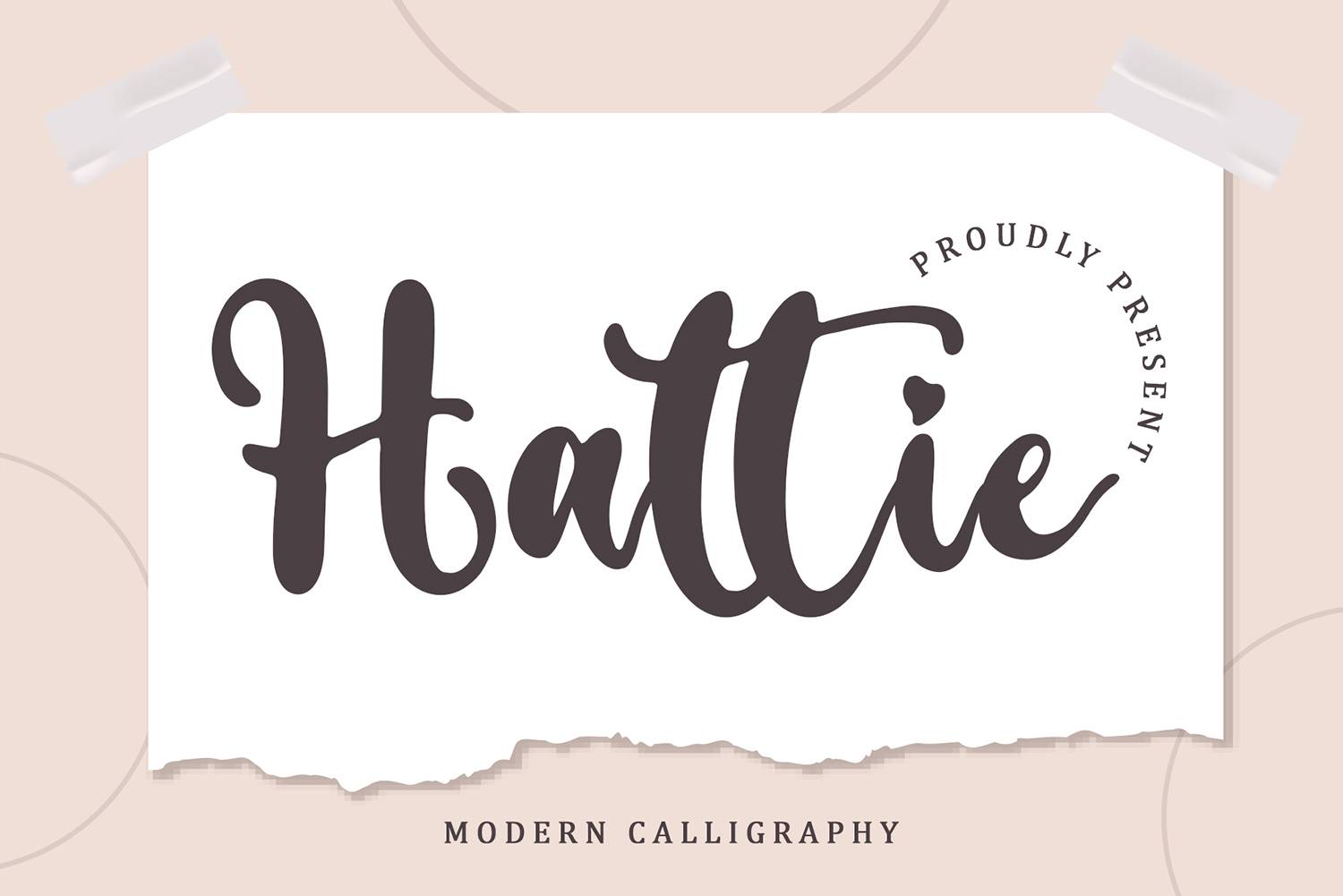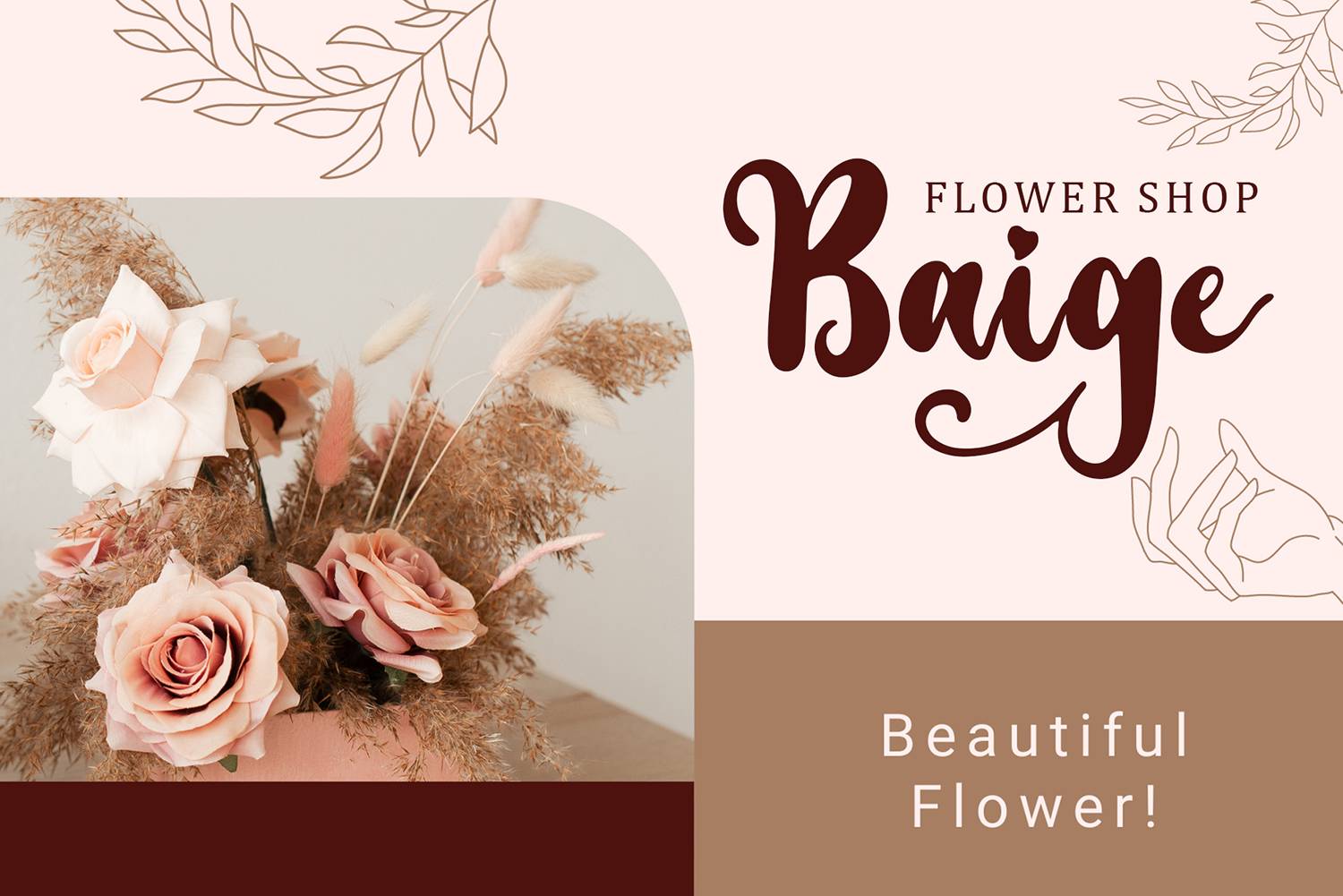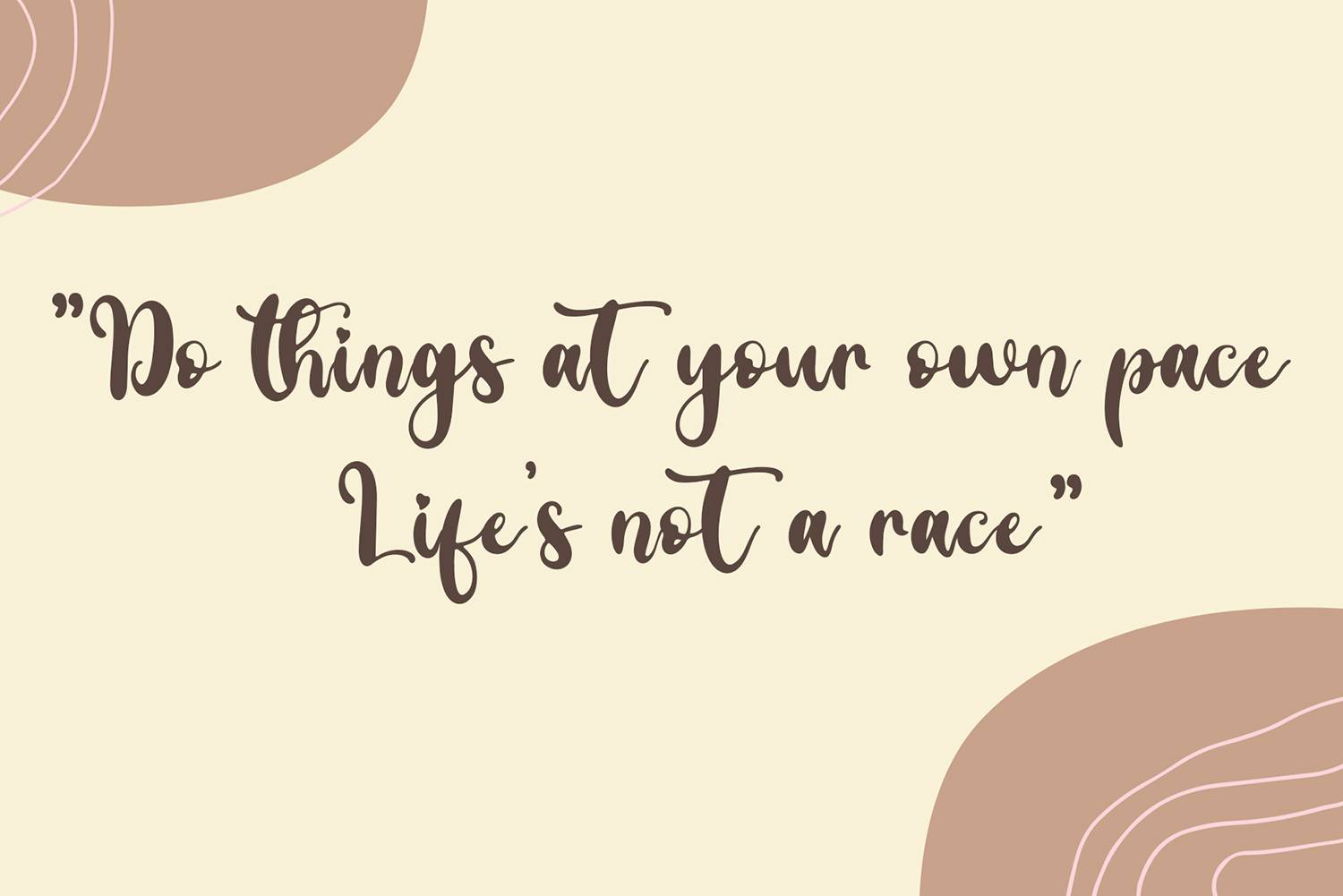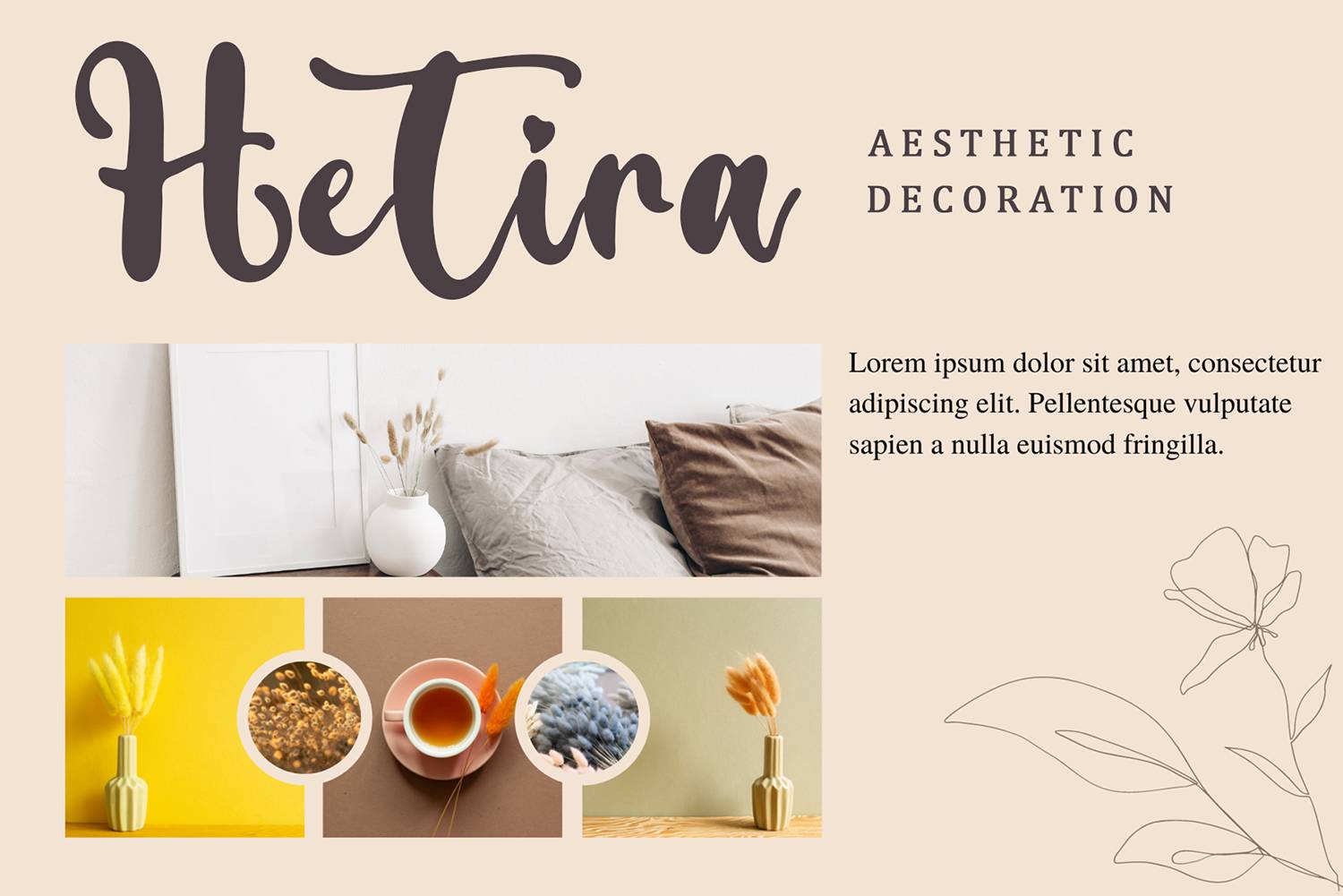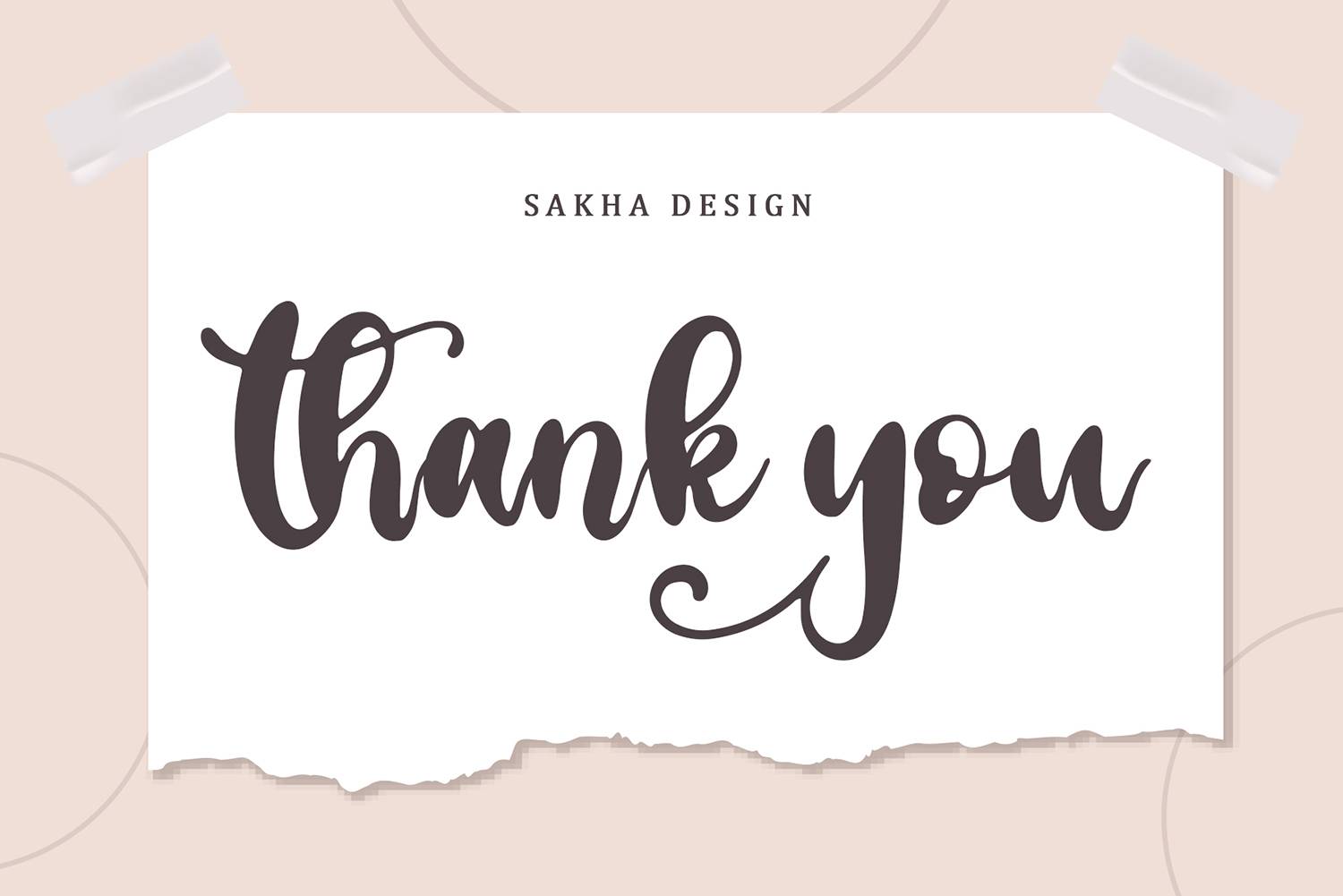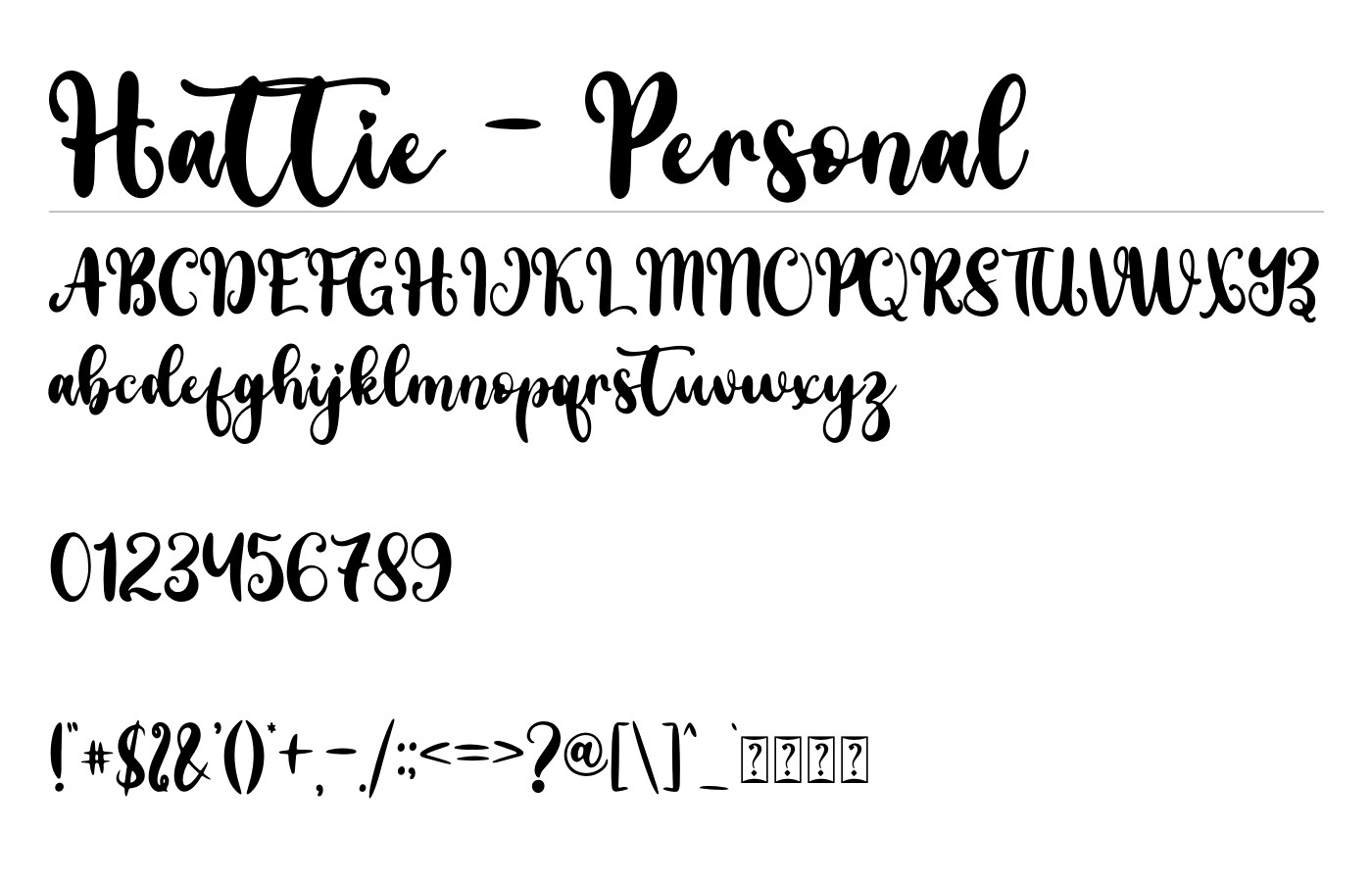
Hattie Font is a lively and elegant script typeface with a bold, brush-like appearance that combines smooth curves and playful flourishes. Its distinctive uppercase and lowercase letters create a warm, personal feel, making it ideal for branding, invitations, and creative projects that want to convey friendliness and charm. The font’s unique style works well in headlines and logos where a touch of personality and sophistication is needed.
Hattie Font
About Hattie Font
| Font family | Hattie Font |